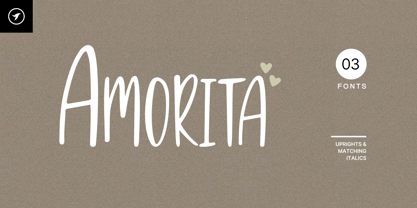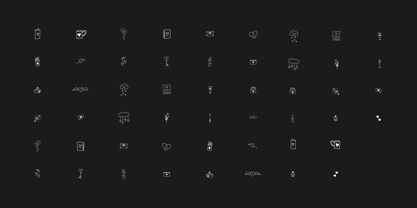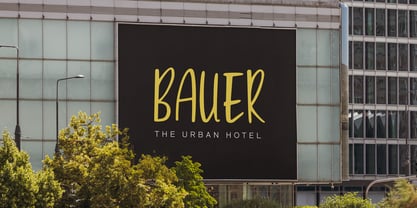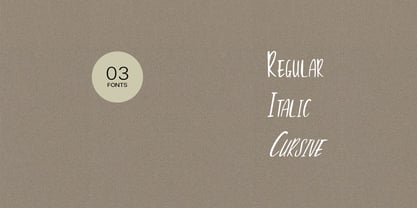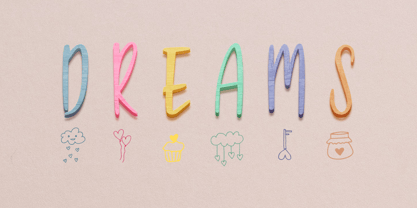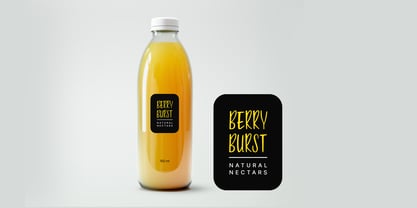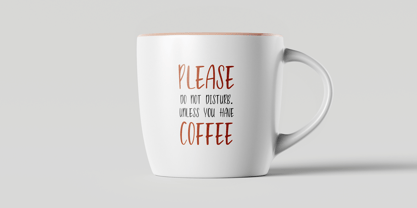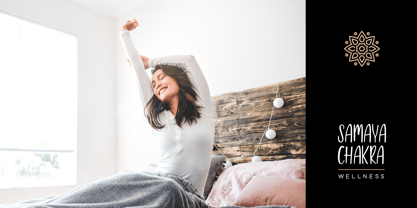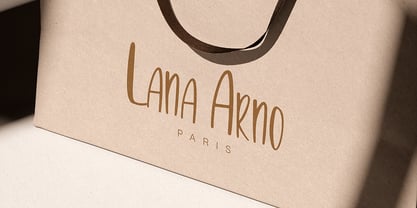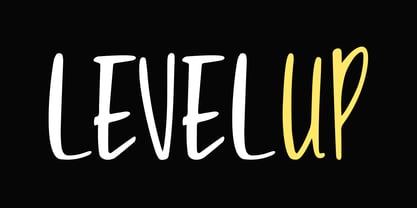
Amorita
by Designova
The Amorita Font Family was designed by Lisha Joseph and published by Designova. Amorita contains 3 styles and family package options.
Amorita is a beautiful and lovely handwritten brush font (also includes 52 cute doodles) for posters/marketing graphics / Instagram story design/ branding/ logotype/ decorations/ signage/ greeting cards / promotional designs and anything that needs a unique casual look. Amorita is completely handmade with perfection and aesthetics at its level best.
Includes 52 Hand-drawn doodles:
The typeface includes 52 hand-drawn 52 cute doodles as an additional feature. These can be activated by choosing the Stylistic Alternatives option within your design software.
Advanced Kerning & Extended Character Sets:
We have performed advanced, in-depth kerning to make sure the font looks amazing on all possible letter combinations. The font includes extended language support including Western European & Central European sets with a total of 339 glyphs.